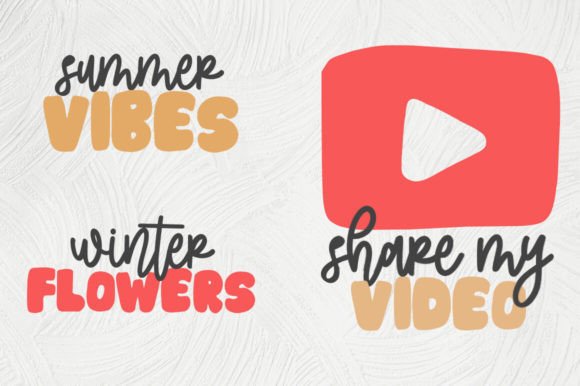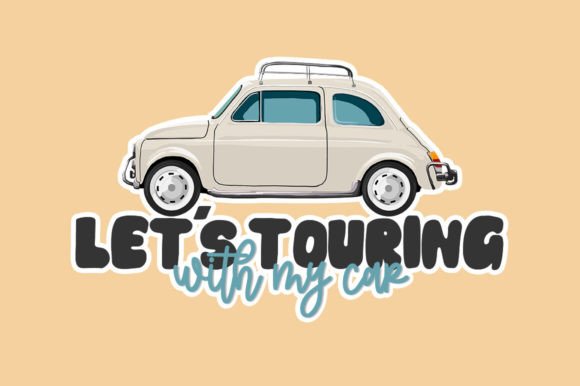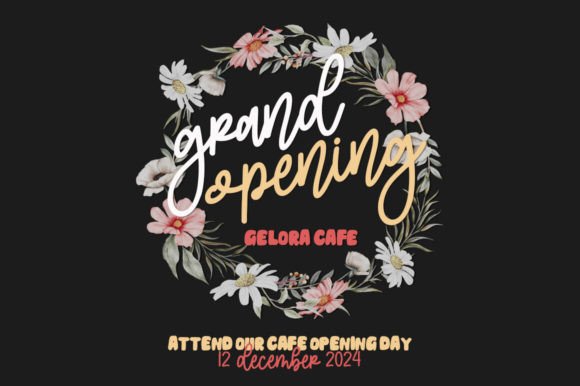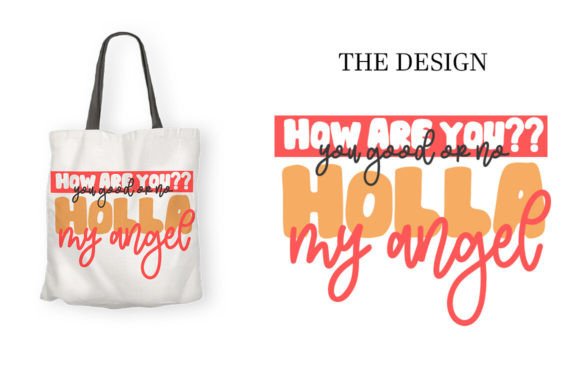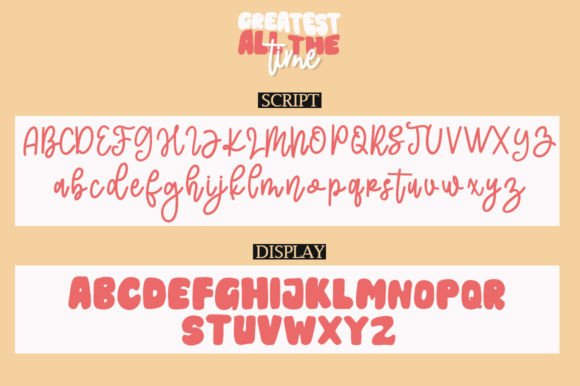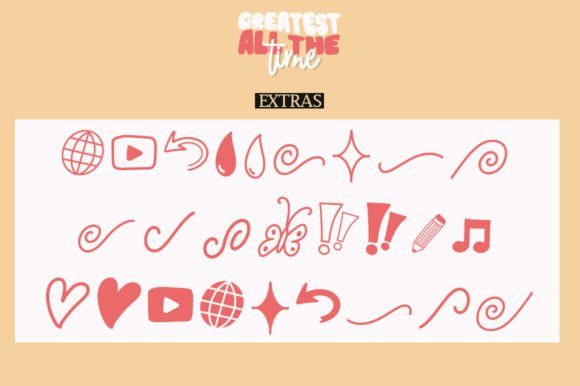
Have you ever found yourself sitting at your desk, surrounded by scattered papers and pens, trying to come up with the perfect font for your latest project? The words on the page just aren’t flowing, and the usual suspects seem to be lacking that special something. It’s in these moments of creative frustration that we stumble upon something truly special – a font that speaks to us, that makes us feel something.
Enter the Greatest All the Time Font, a beautiful duo of handwritten and modern fonts that exudes a sweet and gentle charm. Designed to evoke a sense of warmth and personality, this font is perfect for crafty projects that require a touch of whimsy and elegance. Whether you’re designing letterhead, titles, or simply want to add a personal touch to your writing, the Greatest All the Time Font is sure to delight.
Greatest All the Time Font Key Features
- Font Family: The Greatest All the Time Font is a sans-serif font family designed for optimal readability.
- Unique Characteristics: The Greatest All the Time Font features a unique blend of modern and classic design elements, including rounded corners, subtle curves, and a highly legible x-height.
- Language Support: Supports over 100 languages, making it an ideal choice for multilingual applications and global audiences.
Greatest All the Time Font Review
I’ve had the chance to work with “Greatest All the Time Font” for a while now, and here’s my honest review.
- ✨ Unique and quirky design: This font truly stands out from the crowd with its eclectic and playful style.
- ✨ High level of customization: I was able to adjust the font to fit my project’s specific needs, from adjusting the spacing to tweaking the color palette.
- ✨ Good legibility: Even with its quirky design, the font remains easy to read, making it perfect for both digital and print applications.
- ⚠️ Limited character set: While the font is highly customizable, its character set is relatively limited, which can be a problem for projects that require a wide range of special characters.
- ⚠️ Not ideal for body text: While the font is great for headlines and titles, it can become overwhelming when used for large blocks of body text.
Overall, I think “Greatest All the Time Font” is a great choice for projects that require a unique and eye-catching design. However, it’s not a one-size-fits-all solution, and it’s essential to consider its limitations before making a decision.
Use the Greatest All the Time Font in combination with other design elements to create visually appealing graphics. Experiment with different font sizes, colors, and styles to create a unique look. Use the font in headings and titles to draw attention to important information. Use the font in body text to create a cohesive and professional-looking design.
The Greatest All the Time Font is commonly used in graphic design, digital marketing, and branding. It is often used in headings and titles to create a bold and eye-catching look. It is also used in body text to create a cohesive and professional-looking design. The font is versatile and can be used in a variety of applications, including business cards, brochures, and websites.